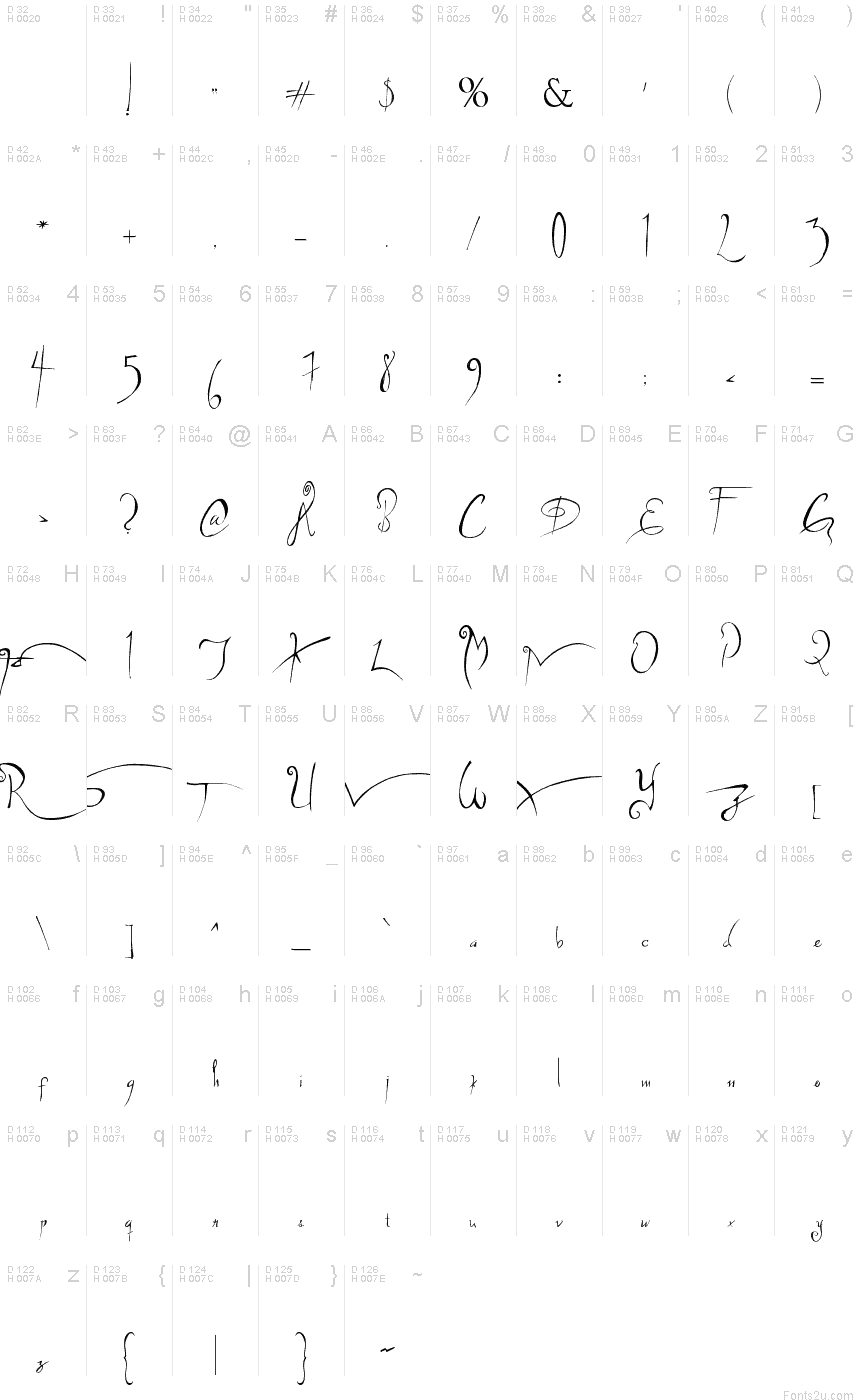
Ruf In Den Wind
Ruf In Den Wind by K.L.A.N.G. INDUSTRIE is a free calligraphic script with extreme loops, sweeping flourishes, and sharply changing stroke widths. Its letters stretch far beyond their basic forms, creating a tangled, theatrical silhouette that feels closer to expressive penwork than restrained formal writing.
Fashion branding is its strongest setting, especially for dramatic logos and campaign graphics built around gesture and movement. The same extravagant curves suit album covers, event posters, and perfume packaging, where the lettering can become part of the central ornament. Its restless linework points toward avant-garde fashion and experimental music rather than traditional invitation calligraphy.